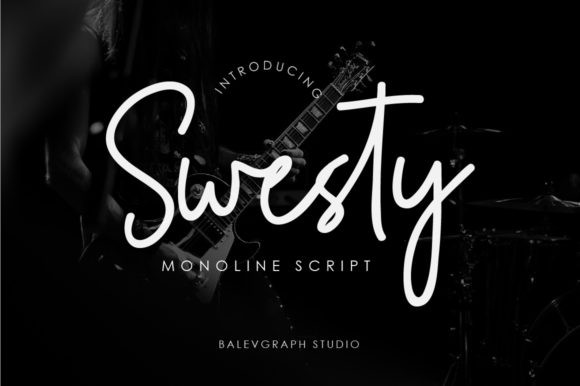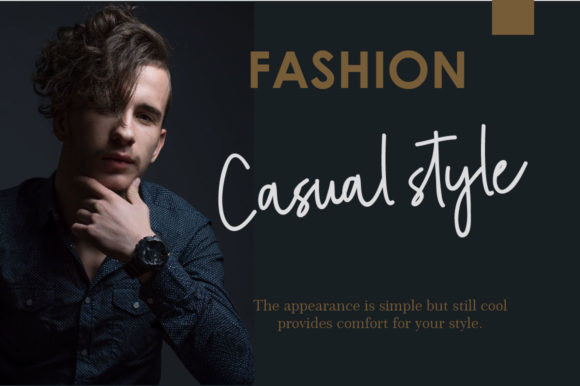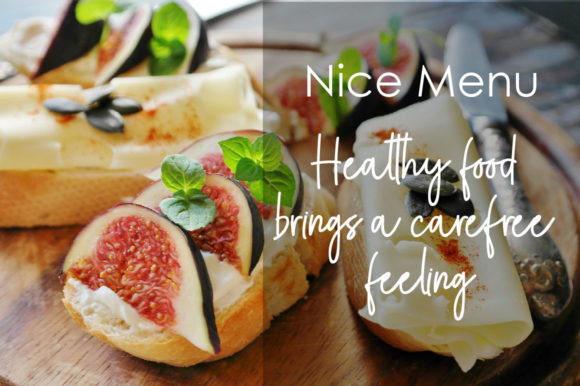
Swesty Font
Swesty Fontswesty is a casual handwritten style, perfect for any design project requiring a customized touch.
It has a classy, elegant and modern look that can be used for logos, branding, invitations, stationery, wedding designs, social media posts, and much more!